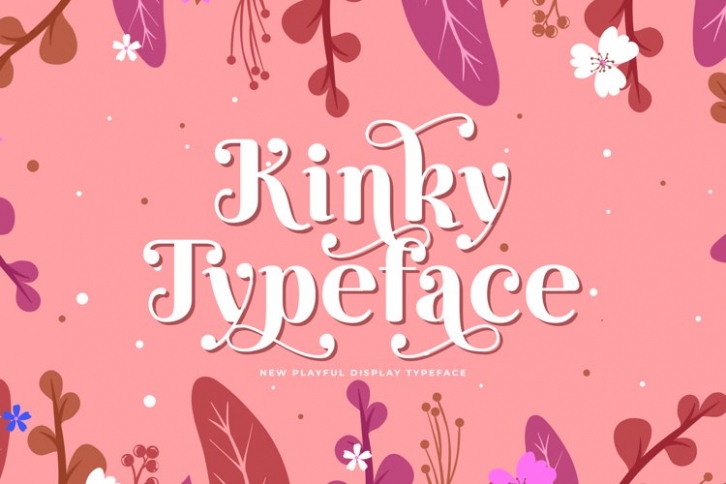
Kinky is a trendy and unique font with an authentic style. It was designed by plusstore and it's a great choice for creative people who need such a font. It was released on April 21, 2022 and the file size is 19.47 MB. Kinky will add an organic vibe to any design idea!